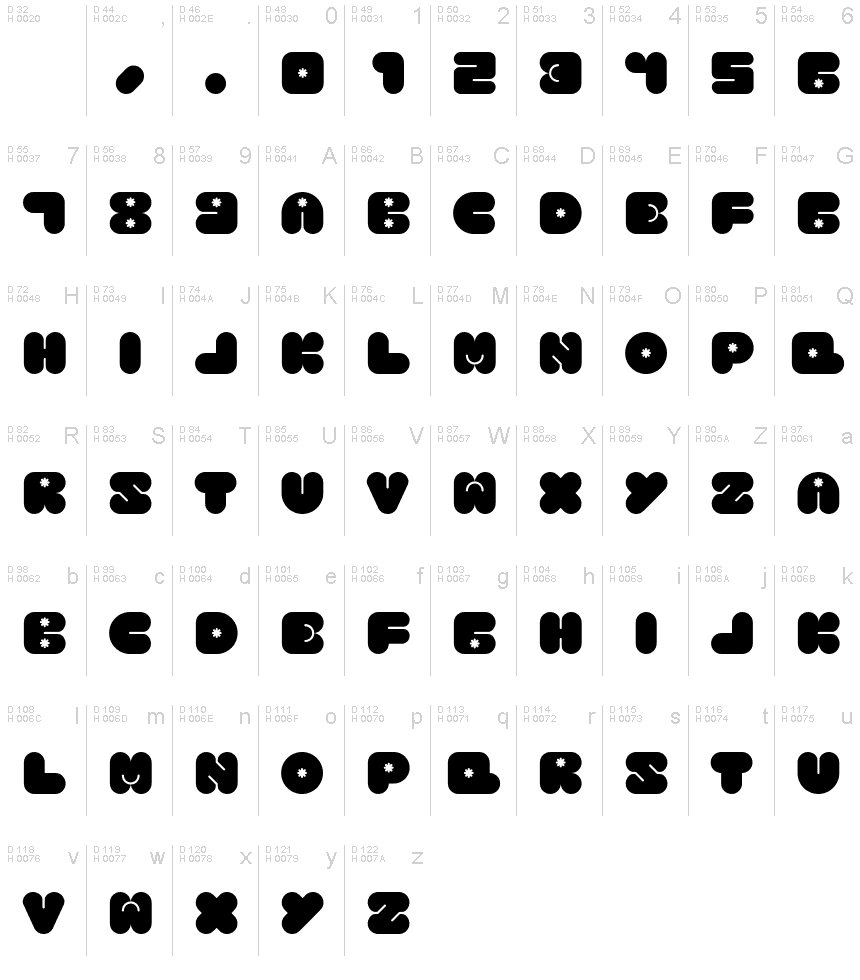
Hazio Regular
The groovy and bold Hazio font from Nortenlab is the perfect choice for any display project. Its unique style make it suitable for creating attention-grabbing titles, logos, posters and more!